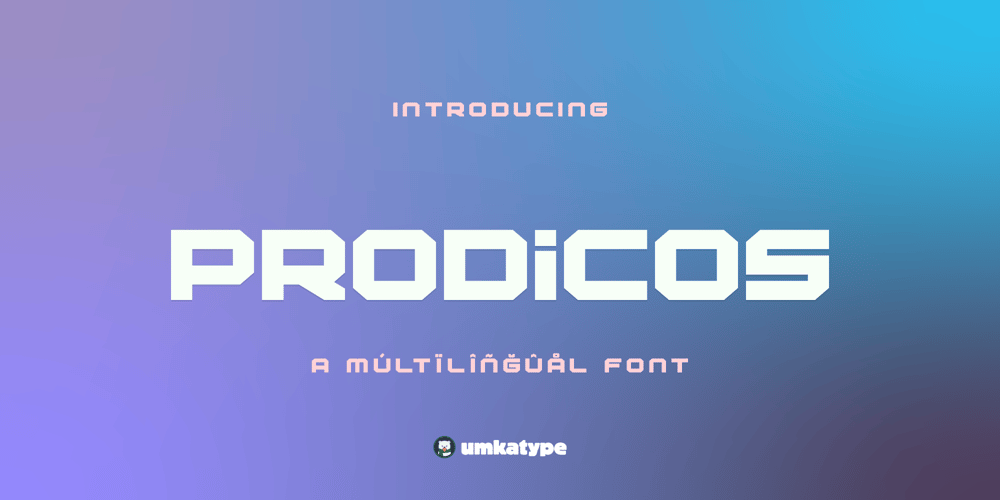
Prodicos
Prodicos font
Prodicos Font Family was designed by Alper Çakıcı and published by Umka Type. Prodicos contains 1 styles and family package options. Prodicos – A Bold Display Font – Prodicos is a carefully crafted multilingual font. It has Extended Latin and Extended Cyrillic letters.— Prodicos created for logo and branding projects, games, web design and social media works. Language support:Afrikaans • Albanian • Asu • Azerbaijani • Basque • Belarusian • Bemba • Bena • Bosnian • Bulgarian • Catalan • Cebuano • Chiga • Colognian • Cornish • Corsican • Croatian • Czech • Danish • Dutch • Embu • English • Erzya • Esperanto • Estonian • Faroese • Filipino • Finnish • French • Friulian • Galician • German • Gusii • Hungarian • Icelandic • Ido • Indonesian • Interlingua • Irish • Italian • Javanese • Jju • Kabuverdianu • Kalaallisut • Kalenjin • Kamba • Kikuyu • Kinyarwanda • Kurdish • Latvian • Lithuanian • Lojban • Low German • Lower Sorbian • Luo • Luxembourgish • Luyia • Machame • Makhuwa-Meetto • Makonde • Malagasy • Malay • Maltese • Manx • Māori • Meru • Morisyen • North Ndebele • Northern Sotho • Norwegian Bokmål • Norwegian Nynorsk • Nyanja • Nyankole • Occitan • Oromo • Polish • Portuguese • Romanian • Romansh • Rombo • Rundi • Russian • Rwa • Samburu • Sango • Sangu • Sardinian • Scottish Gaelic • Sena • Shambala • Shona • Sicilian • Slovak • Slovenian • Soga • Somali • South Ndebele • Southern Sotho • Spanish • Sundanese • Swahili • Swati • Swedish • Swiss German • Taita • Taroko • Teso • Tsonga • Tswana • Turkish • Turkmen • Upper Sorbian • Vunjo • Walloon • Walser • Welsh • Western Frisian • Xhosa • Zulu—- Free Support- Free Updates- Free Requests—Customer SupportPlease let us know if there is a feature you’d like to see. Updates will always be free to existing owners.